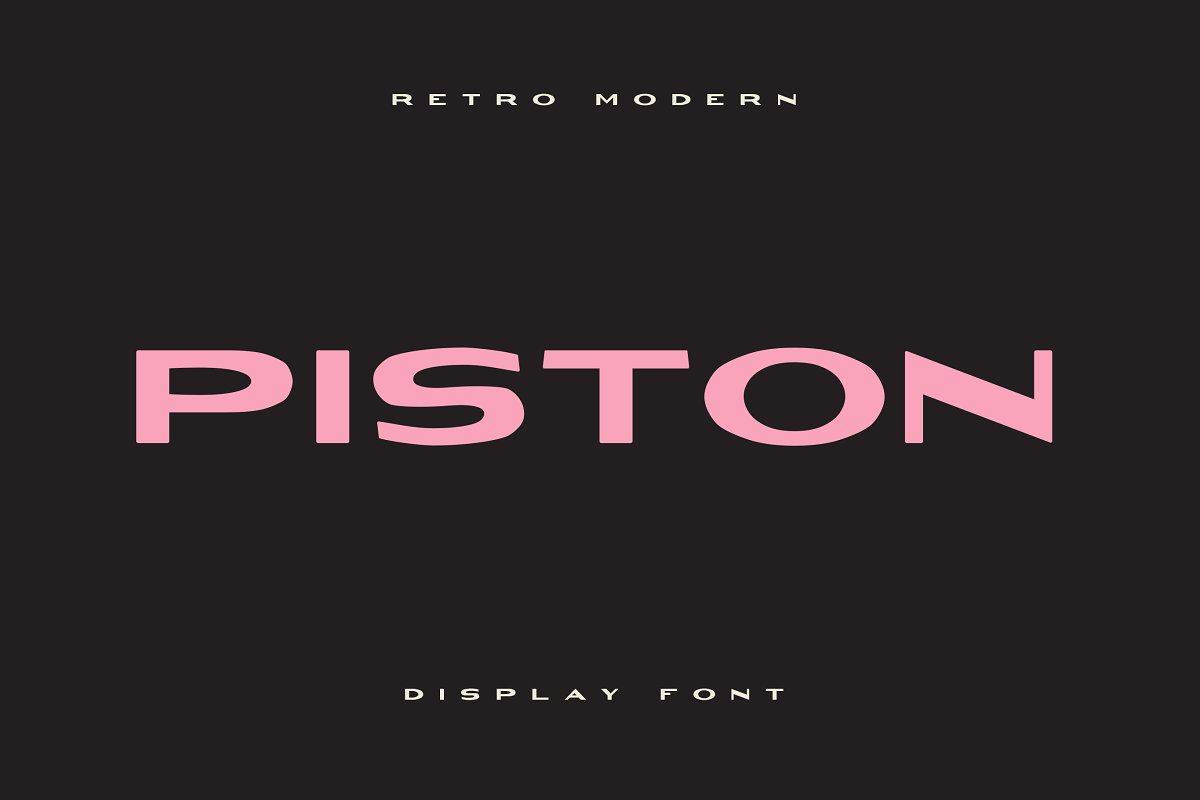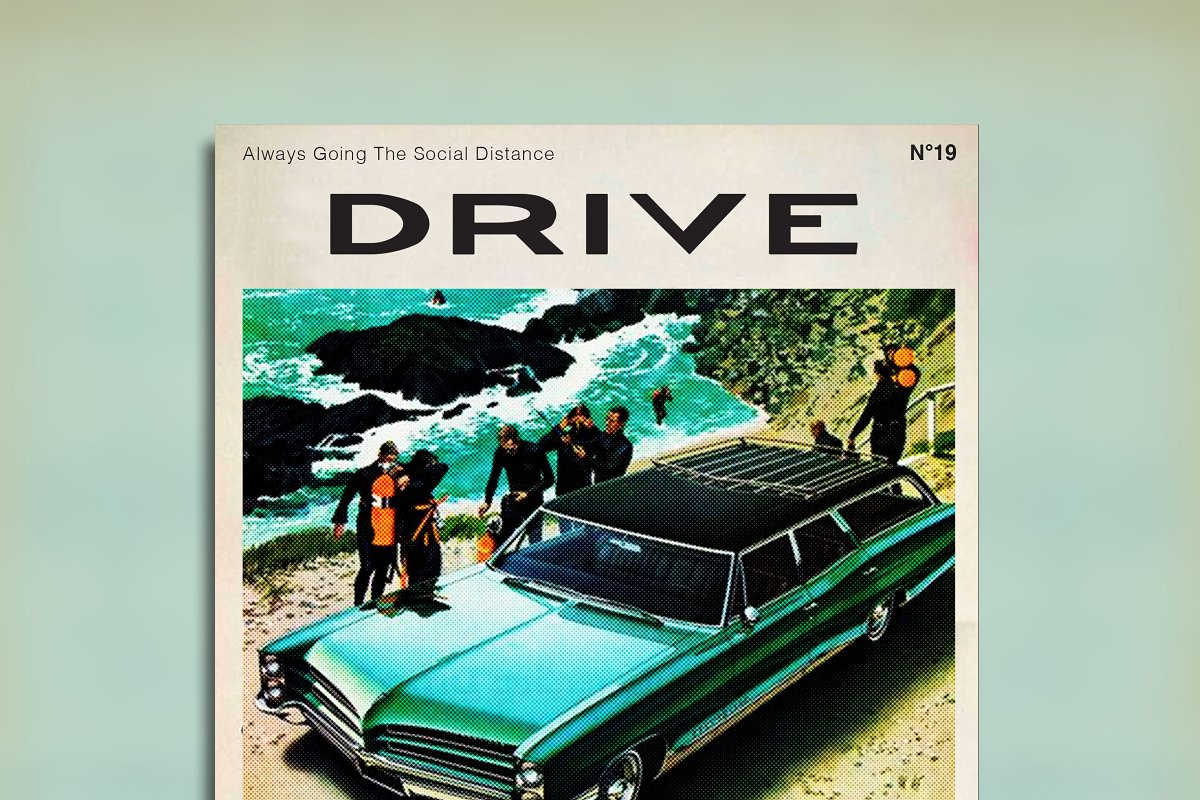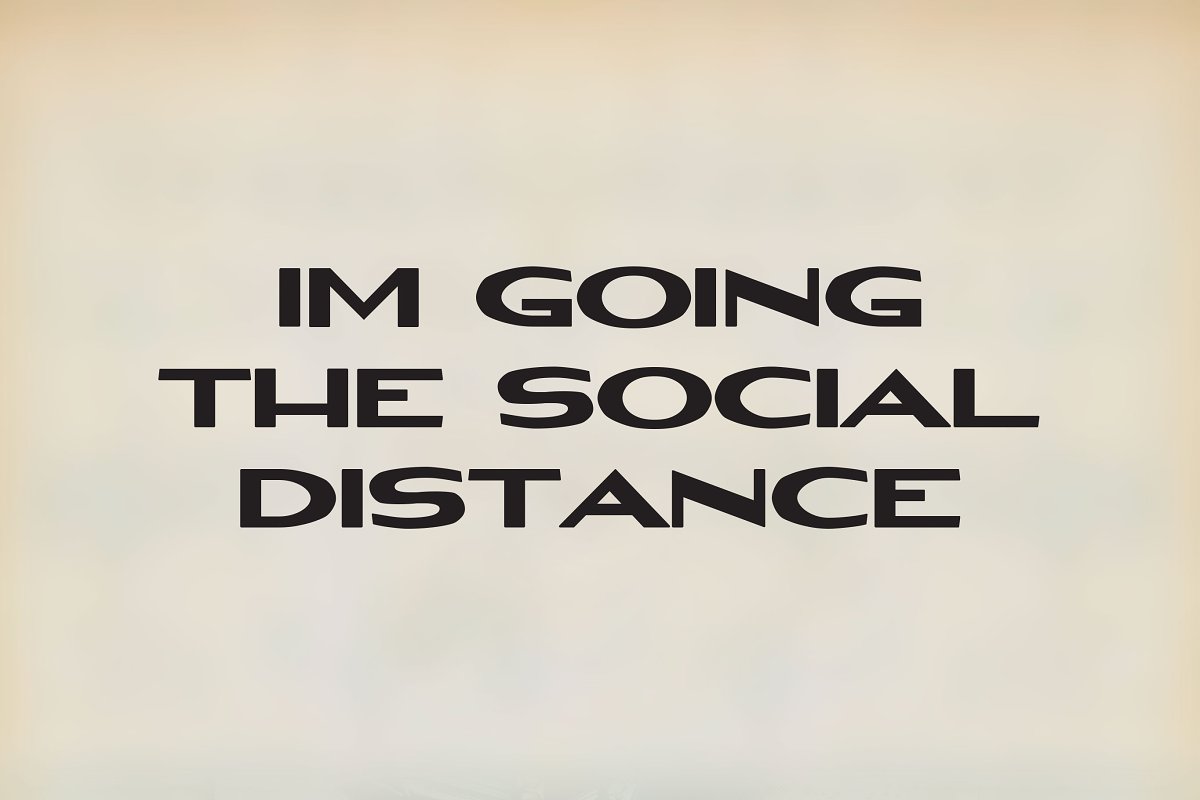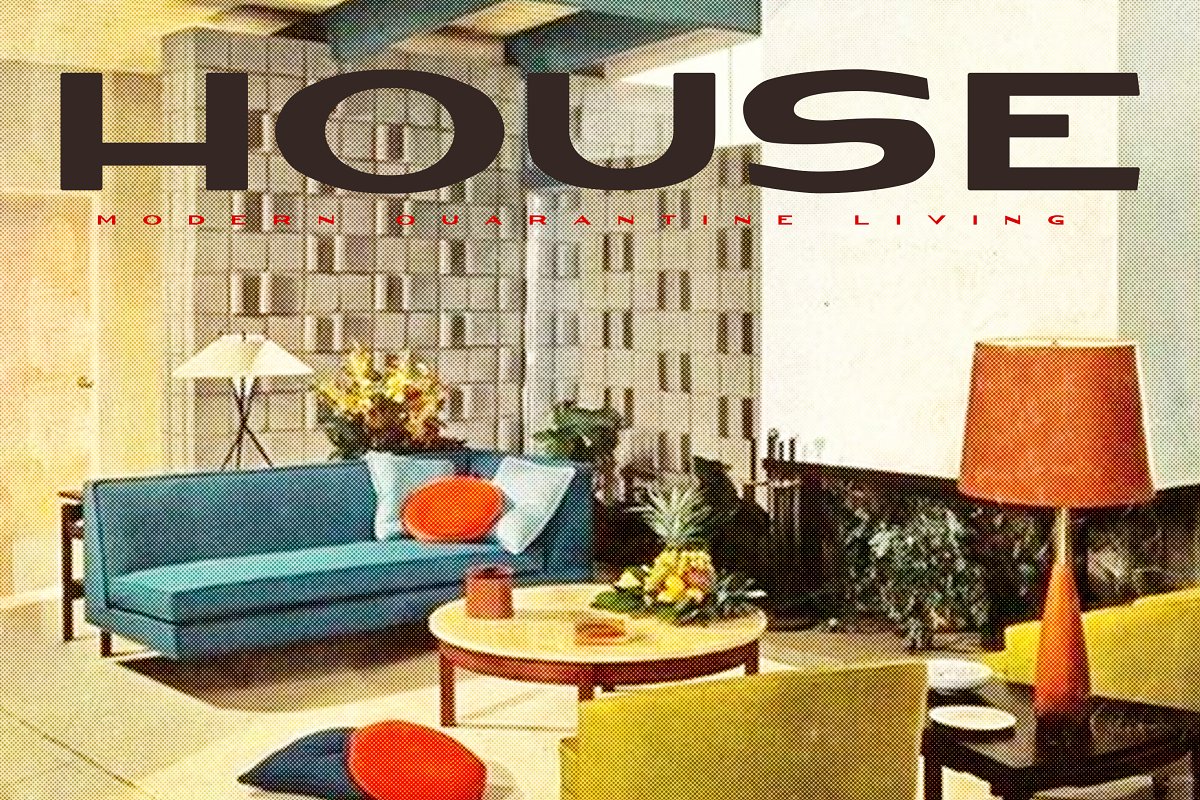
About the PISTON Retro Modern Display Font
PISTON – A brand new bold sans serif display font with some retro modern styling that takes you back to a simpler time, This all caps retro modern display font is ideal for the following types of work; magazines (titles and layouts), logo design, brand development, invitations, quotes, blog headers, posters, and advertising, Piston is familiar yet fresh, retro yet modern, old and new all at the same time